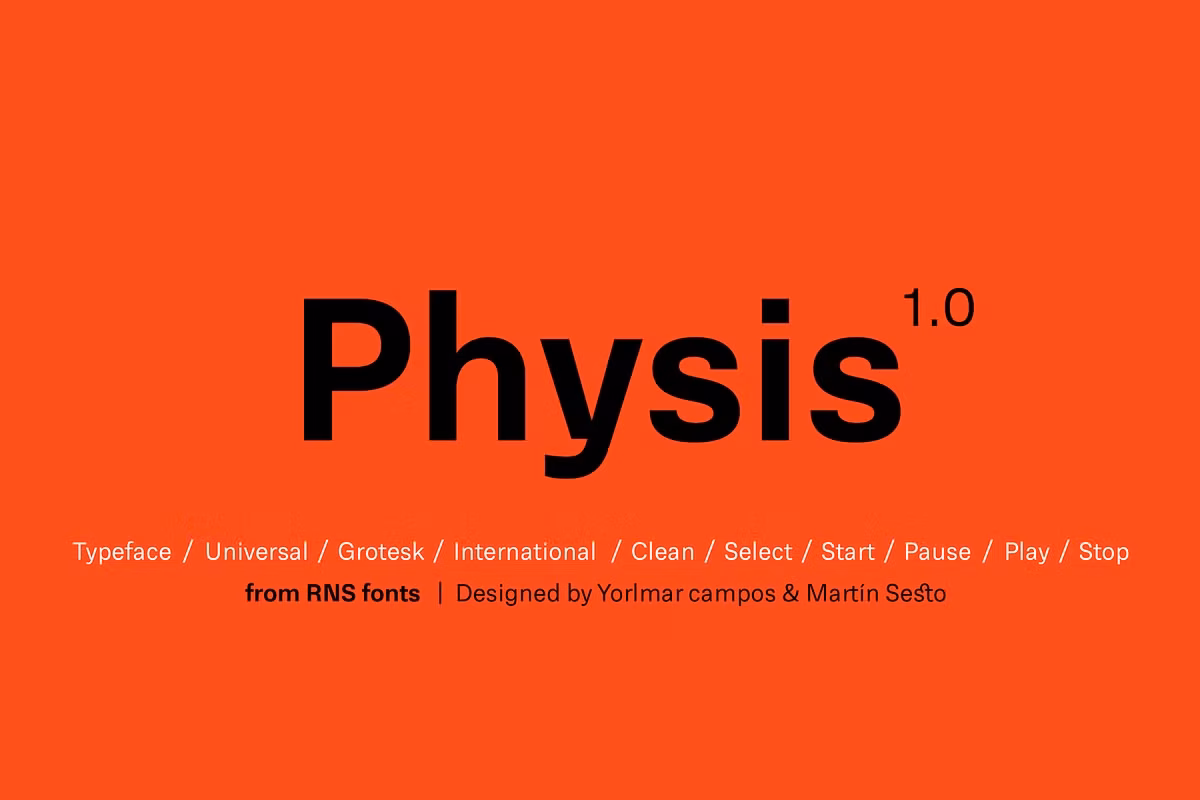
RNS Physis Family Font Free Download is a modern, versatile font family designed to be adaptable and highly readable. Featuring multiple weights and styles, RNS Physis is perfect for a wide range of design projects, from branding and logos to editorial layouts, websites, and marketing materials. Its clean lines and balanced proportions make it a perfect choice for both print and digital applications.
Using the RNS Physis Family Font Free Download adds a professional, contemporary feel to your typography. Whether you're designing a corporate identity, working on a magazine layout, or developing a website, this font family offers flexibility and elegance across all your projects.